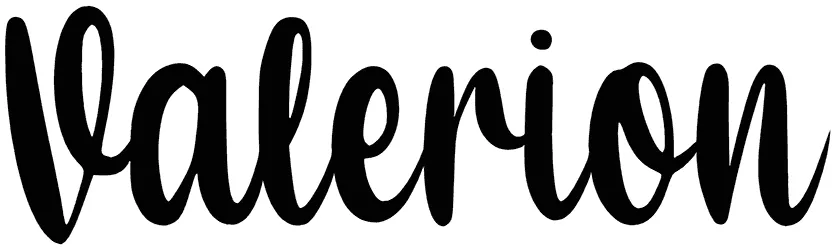
Valerion Font
Give your text a natural and minimal face and make your design more charming. As a silky with a sweet vibe, Valerion can be harmonized with formal or informal projects. With an almost full backup of characters, the Valerion font can flourish your subsequent designs, for instance planners, postcards, branding, and many others the same.
VALERION – elegant modern calligraphy –